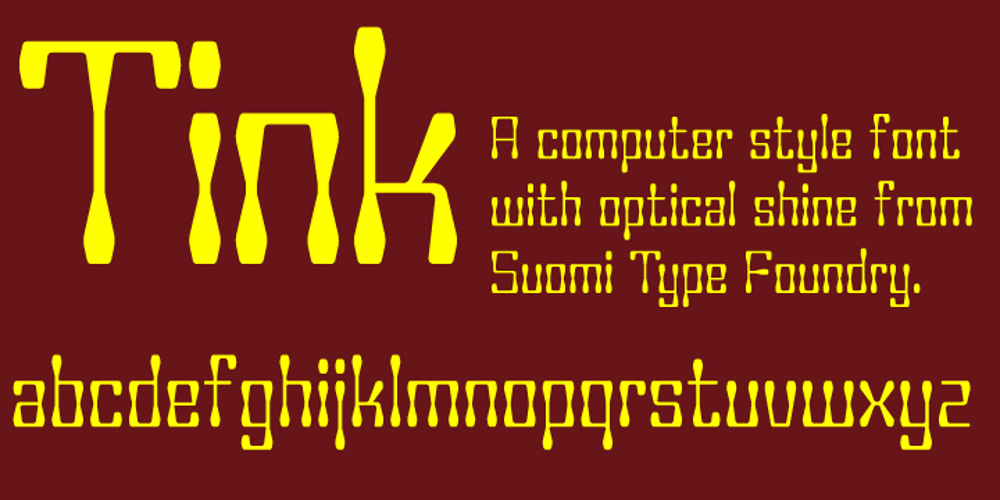
Tink Font Family was designed by Tomi Haaparanta and published by Suomi. Tink contains 1 styles and family package options. I was playing around with computer style forms, and suddenly noticed an optical effect in this style. There you go!